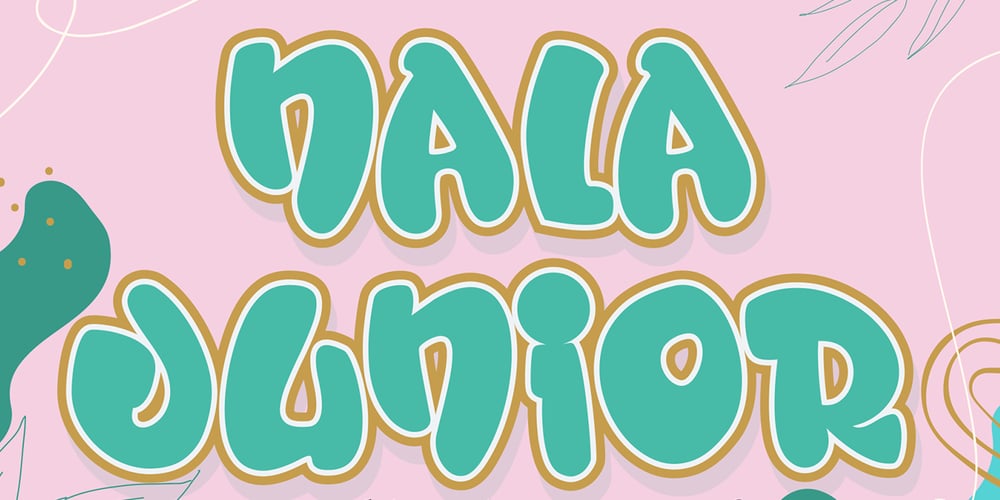
Nala Junior
Nala Junior font
Nala Junior Font Family was designed by Sipanji and published by Sipanji21. Nala Junior contains 1 styles and family package options. Nala Junior is a chubby, fun and charming display font. Its simple and friendly style makes this design incredibly versatile, fitting a wide variety of creative ideas.If you have any queries, questions, or issues please don’t hesitate to contact us direct. Download within a few clicks and use across a huge range of programs including Photoshop, InDesign, Illustrator, and Microsoft Word as well as many more.